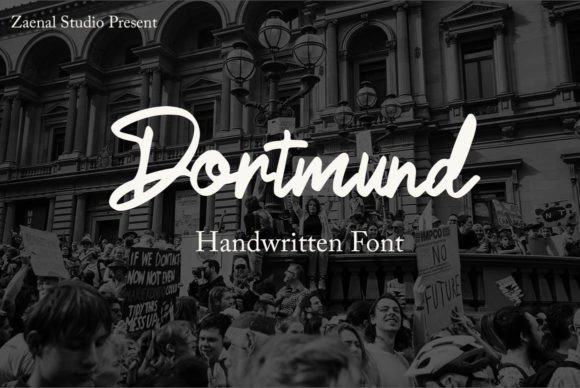
Dortmund Font: Elevate Your Brand with Elegance and Uniqueness
In the realm of typography, a font can make or break the visual identity of a brand. For designers and crafters seeking that perfect blend of elegance, uniqueness, and versatility, the Dortmund Font emerges as a game-changer. This handwritten script font is not just a typeface; it’s a statement piece designed to elevate your brand and logo designs to new heights of sophistication and charm.
The Essence of Dortmund Font
Dortmund is more than just a font; it’s an experience. Crafted with meticulous attention to detail, this handwritten script font exudes a sense of class and elegance that is hard to find in the digital age. Its unique strokes and fluidity make it stand out, offering a refreshing alternative to the more conventional and often overused typefaces. Whether you’re aiming to create a vintage logo, design business cards, or craft invitations, Dortmund Font provides the perfect blend of style and uniqueness.
Perfect for Brand and Logo Designs
Branding and logo design are critical elements in establishing a company’s identity. The right font can communicate your brand’s values, personality, and aesthetic with just a glance. Dortmund Font, with its elegant and classy appeal, is tailored to help you create logos and brand materials that are not only visually stunning but also memorable. Its versatility ensures that it can be adapted across various platforms, from digital media to print, maintaining its charm and elegance in every application.
One of the key strengths of the Dortmund Font is its versatility. It’s perfect for a wide range of design projects, including:
- Invitations: Add a touch of elegance to your event invitations, making them truly unforgettable.
- Business Cards: Stand out in a stack of cards with a design that’s both sophisticated and unique.
- Vintage Logos: Create logos that have a timeless appeal, perfect for brands looking to evoke a sense of history and tradition.
- Branding: Elevate your brand’s visual identity with a font that speaks of elegance and class.
- Logo Design: Craft logos that are not just visually appealing but also tell a story of sophistication and style.
The Unique Touch: Ligatures
To further enhance the uniqueness of the Dortmund Font, it comes with a set of ligatures. These special character combinations allow designers to create more personalized and intricate designs. Ligatures offer a way to add a creative twist to your designs, making them even more distinctive and engaging. With Dortmund Font, you have the flexibility to experiment with various design elements, ensuring that your final product is truly one-of-a-kind.
Why Choose Dortmund Font?
In a market saturated with generic typefaces, the Dortmund Font stands out for several reasons:
- Elegance: Its handwritten script offers a level of sophistication that’s hard to match.
- Uniqueness: With its distinct strokes and ligatures, it’s the perfect choice for designers looking for something beyond the ordinary.
- Versatility: It can be used across a variety of design projects, from branding and logos to invitations and business cards.
Dortmund Font is not just a typeface; it’s a design statement. It’s perfect for designers and crafters who are on the lookout for a font that combines elegance, uniqueness, and versatility. Whether you’re aiming to create a stunning logo, design elegant invitations, or craft memorable brand materials, Dortmund Font is your go-to choice. With its classy appeal and the added touch of ligatures for uniqueness, it’s set to become your favorite companion in the world of design.